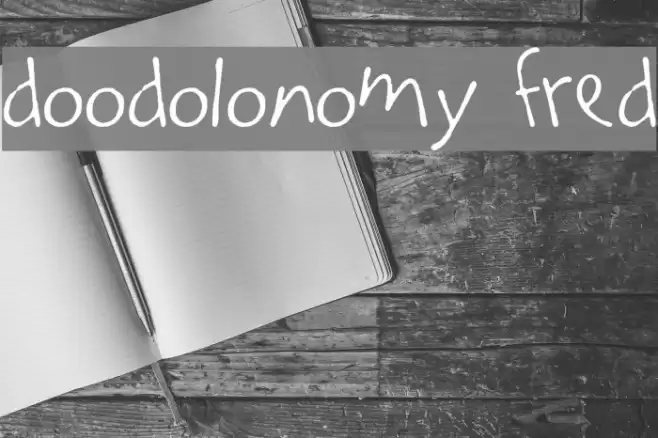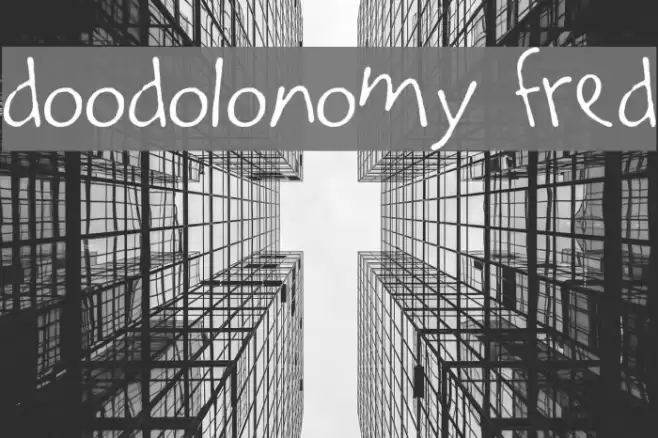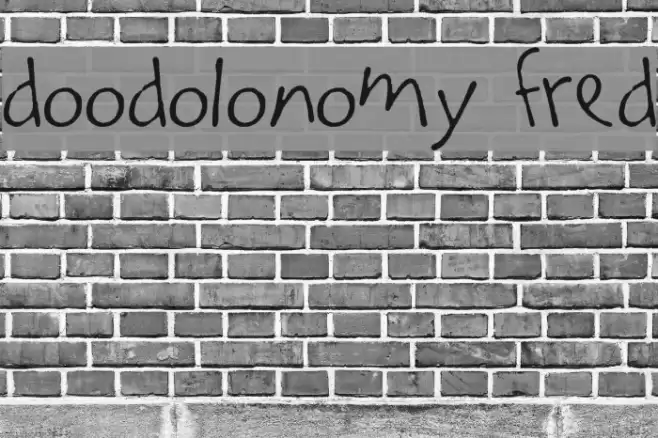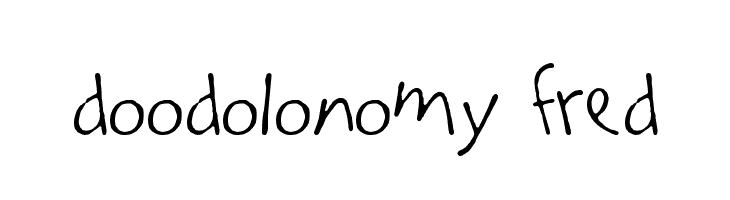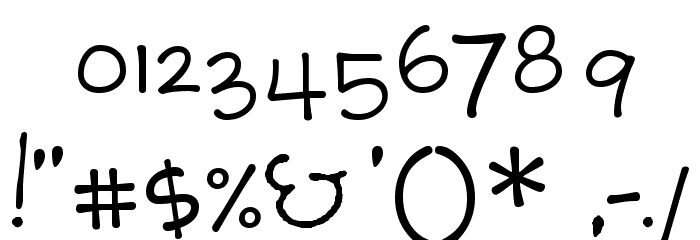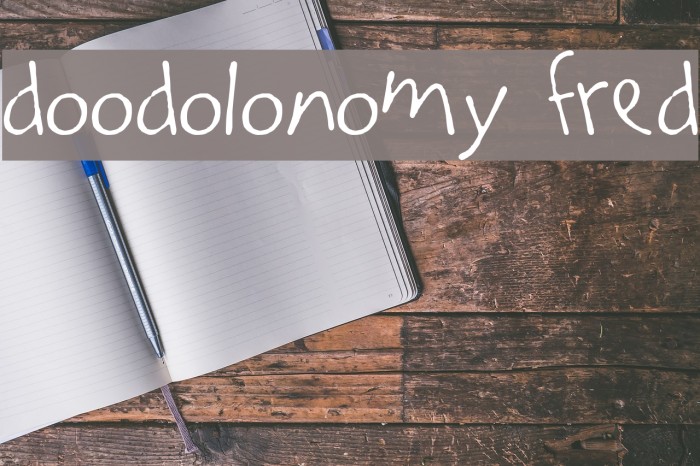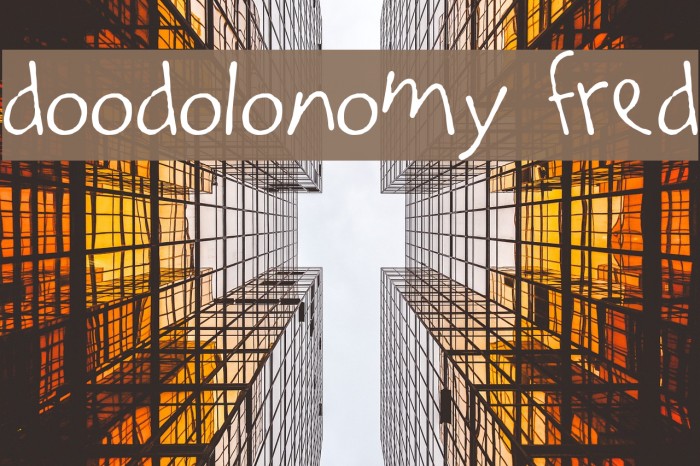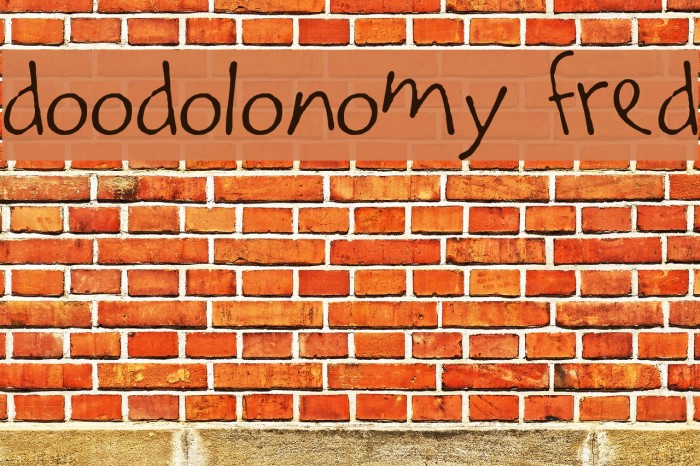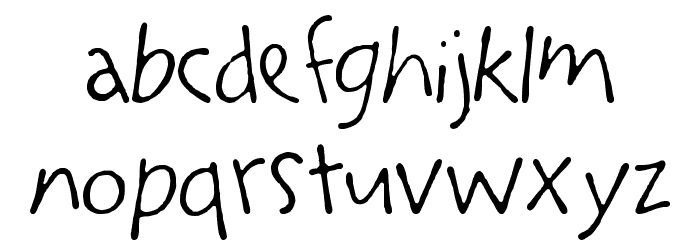
Doodolonomy Fred Font
Doodolonomy Fred Description
This playful and whimsical font features a handwritten style with a casual and informal appearance. The letters are slightly irregular, giving it a charming and personal touch. The strokes are consistent in width, creating a uniform look while maintaining a sense of spontaneity. The font includes both uppercase and lowercase letters, numbers, and a variety of special characters. Its organic flow and friendly demeanor make it ideal for projects that require a personal or creative touch.
A playful, handwritten font with a casual and informal style from Decorative fonts.
- Proposed Projects: Ideal for children's books, greeting cards, personal blogs, and creative projects that require a friendly and approachable feel.
- Overall Style: Casual, Playful
- Use Case: Headlines, Informal text, Creative projects